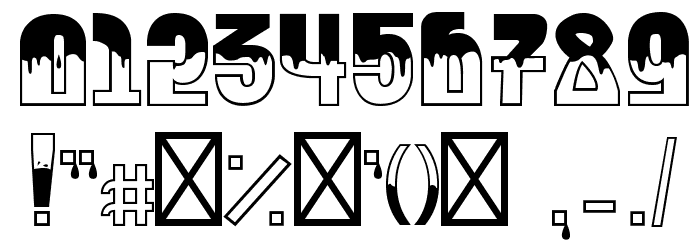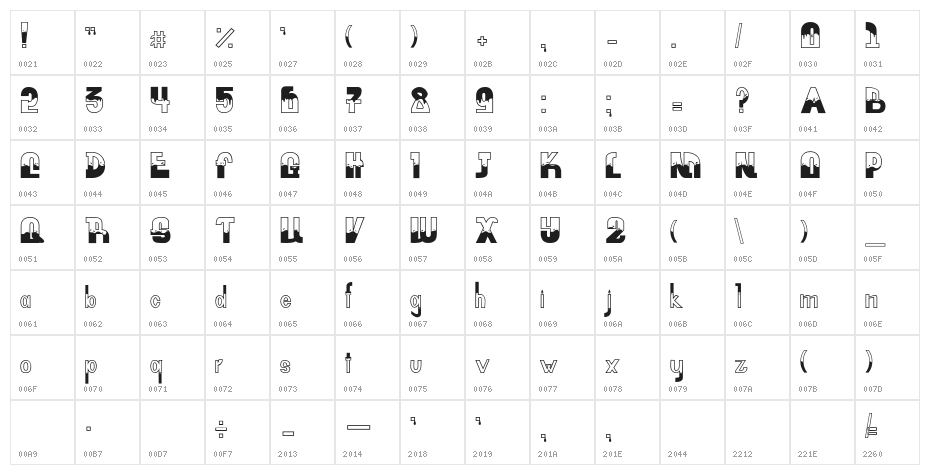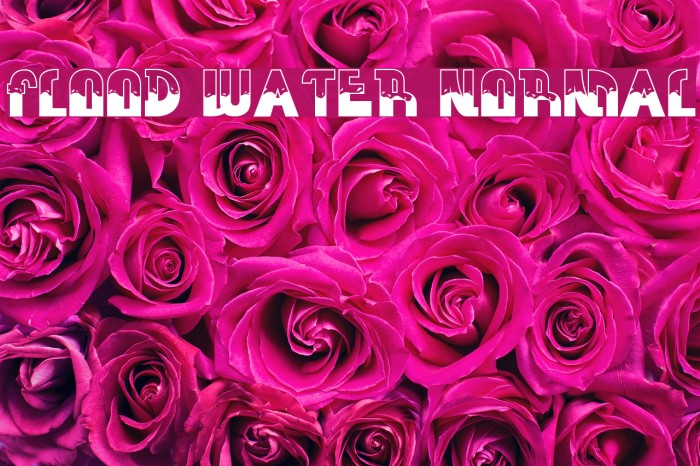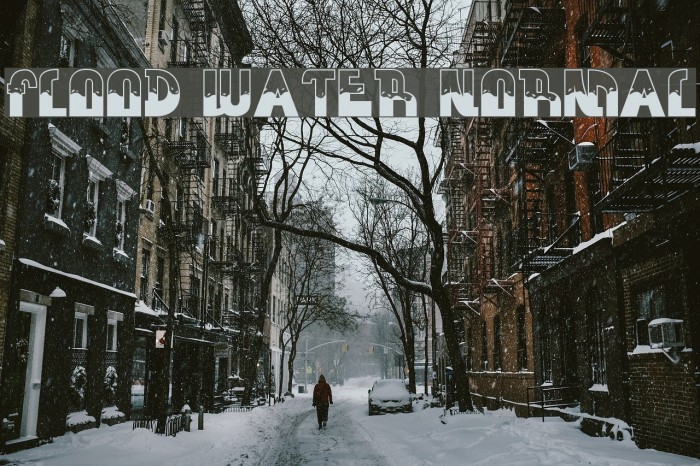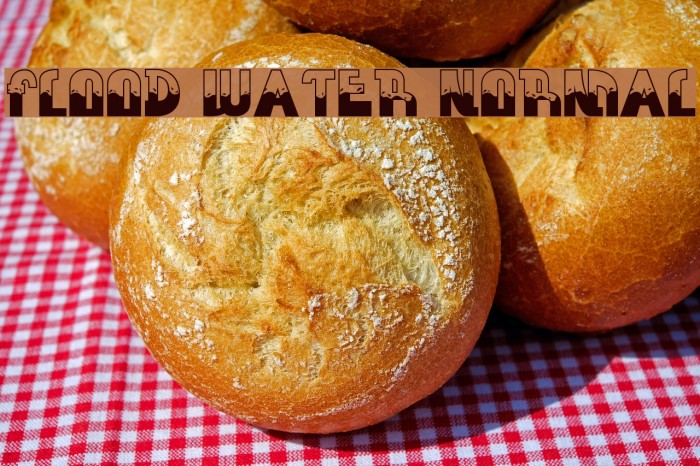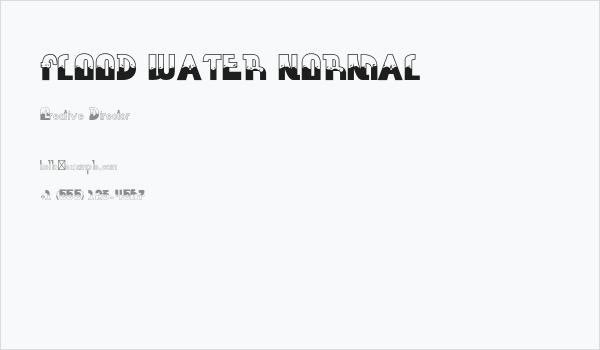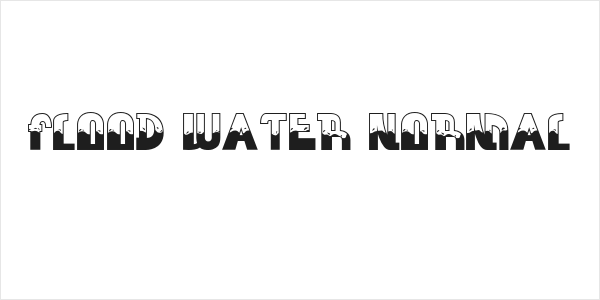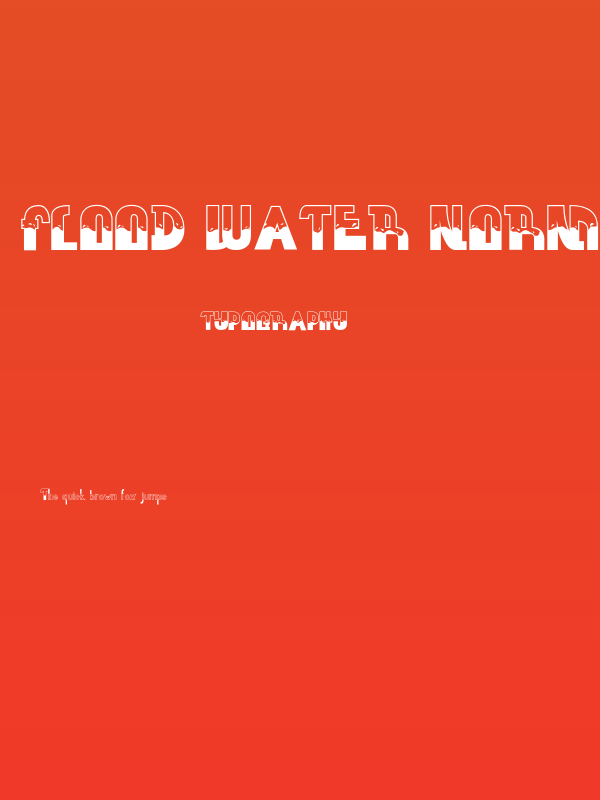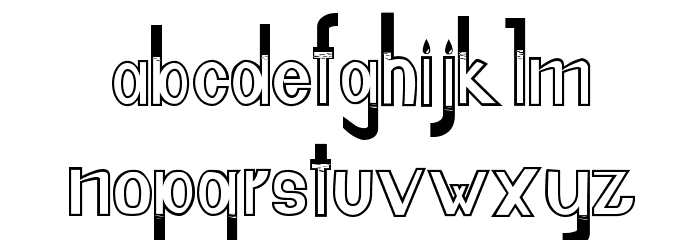
FLOOD WATER NORMAL Font
FLOOD WATER NORMAL Description
This font features a unique and playful design with a dripping effect reminiscent of water or paint. The uppercase letters are bold and have a distinct, eye-catching style with a high contrast between the thick and thin strokes. The lowercase letters maintain a similar playful aesthetic, with some characters featuring a slight slant, adding to the dynamic feel of the font. Numbers and special characters continue the theme, with the dripping effect present throughout, making it ideal for creative and informal projects.
| Proposed Projects | This font is ideal for projects that require a fun and engaging look, such as children's book covers, event posters, or playful branding materials. |